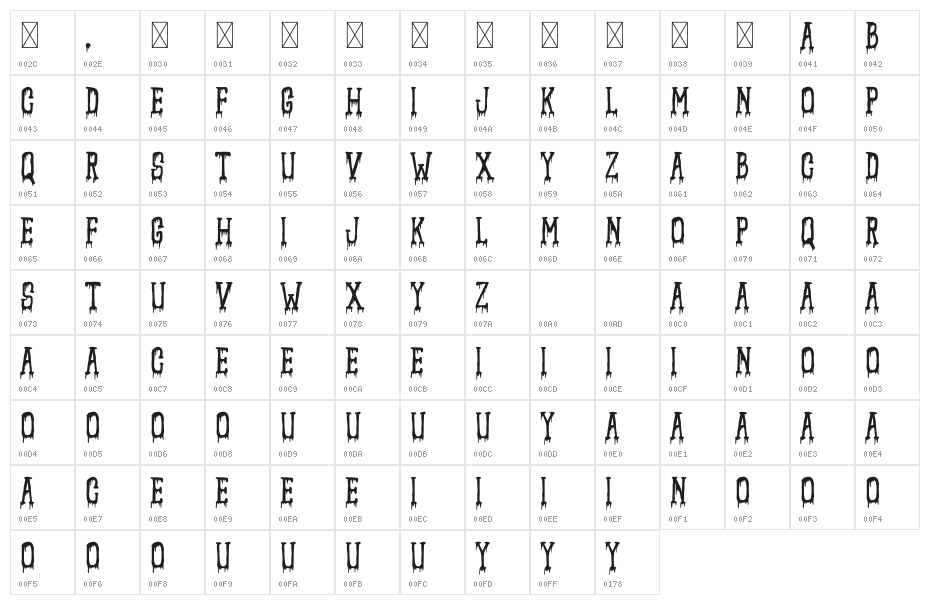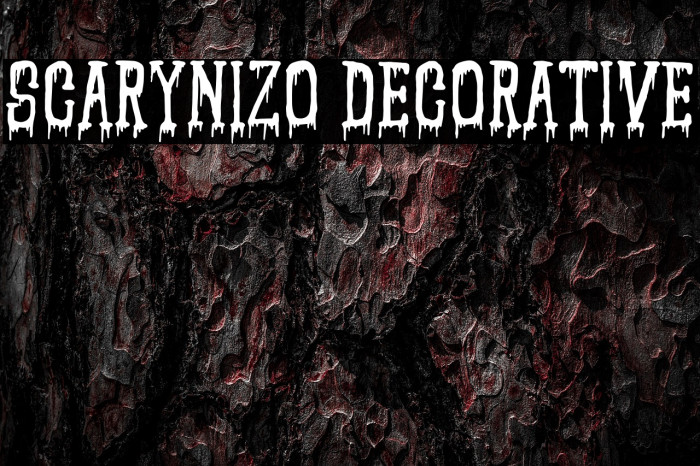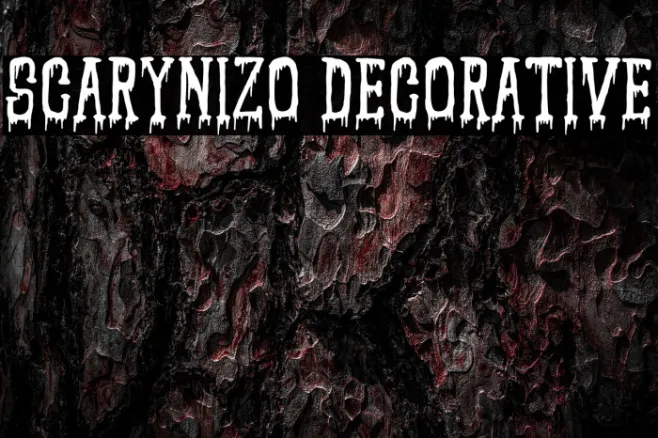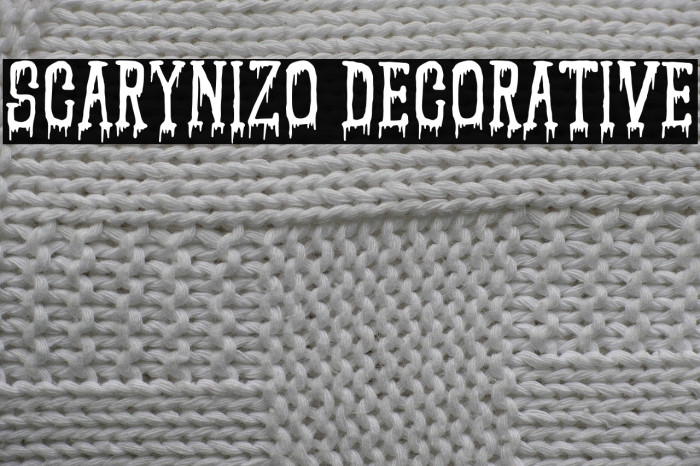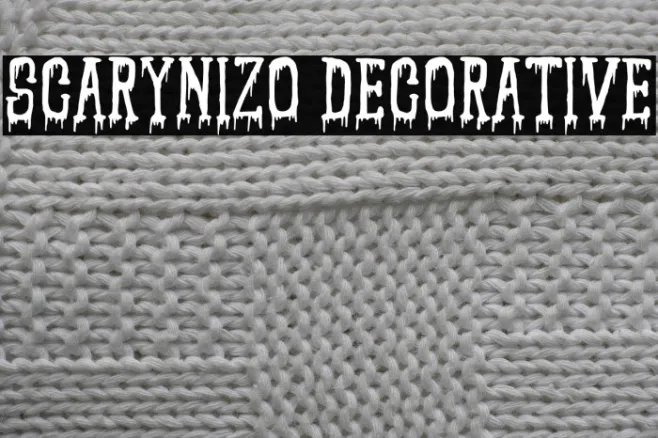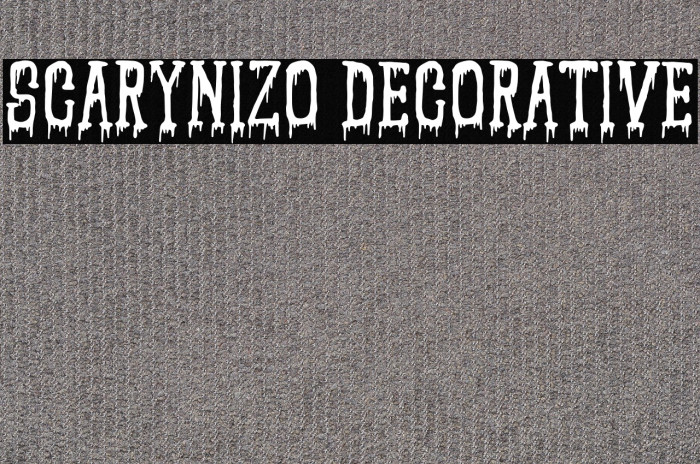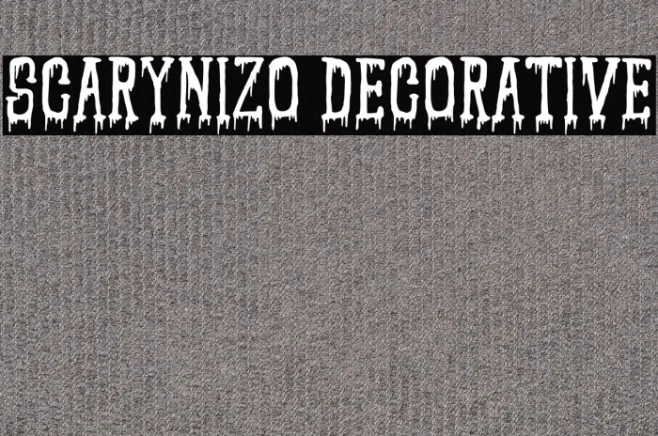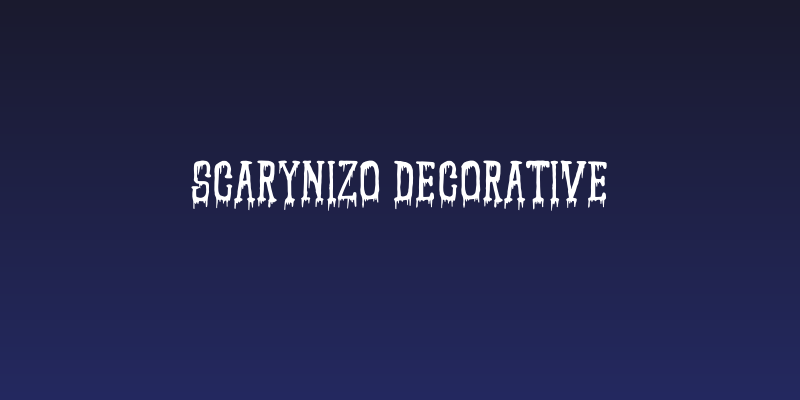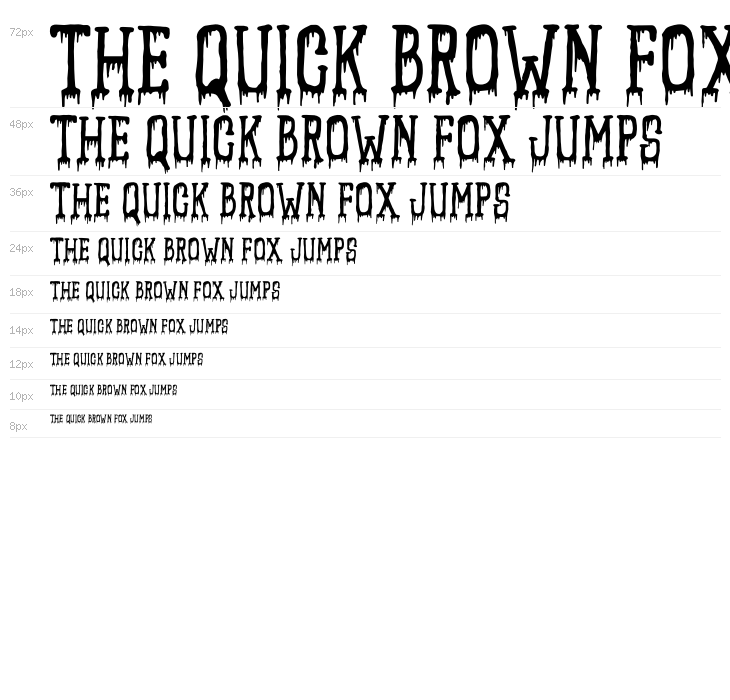
SCARYNIZO DECORATIVE Font
SCARYNIZO DECORATIVE Description
This font features a spooky, dripping design that evokes a sense of horror and mystery. The uppercase letters are bold and dramatic, with each character appearing as if it's melting or dripping, adding a chilling effect. The style is highly decorative, making it ideal for Halloween-themed projects or any design requiring a touch of the macabre. The font's unique appearance is both eye-catching and memorable, perfect for creating a strong visual impact.